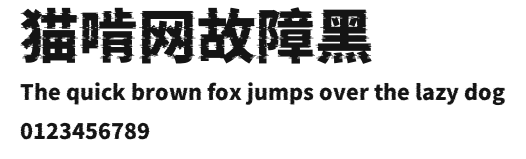
猫啃网故障黑 Preview
• Font Name: 猫啃网故障黑
• Designer: 夜煞之乐2001 (修改自思源黑体 CN Heavy)
• Manufacturer: 猫啃网
• Description: 修改自思源黑体 CN Heavy。
猫啃网故障黑.otf is a modern, elegant sans-serif font designed for ultimate readability and visual harmony. Perfect for branding, headlines, web design, and print materials.